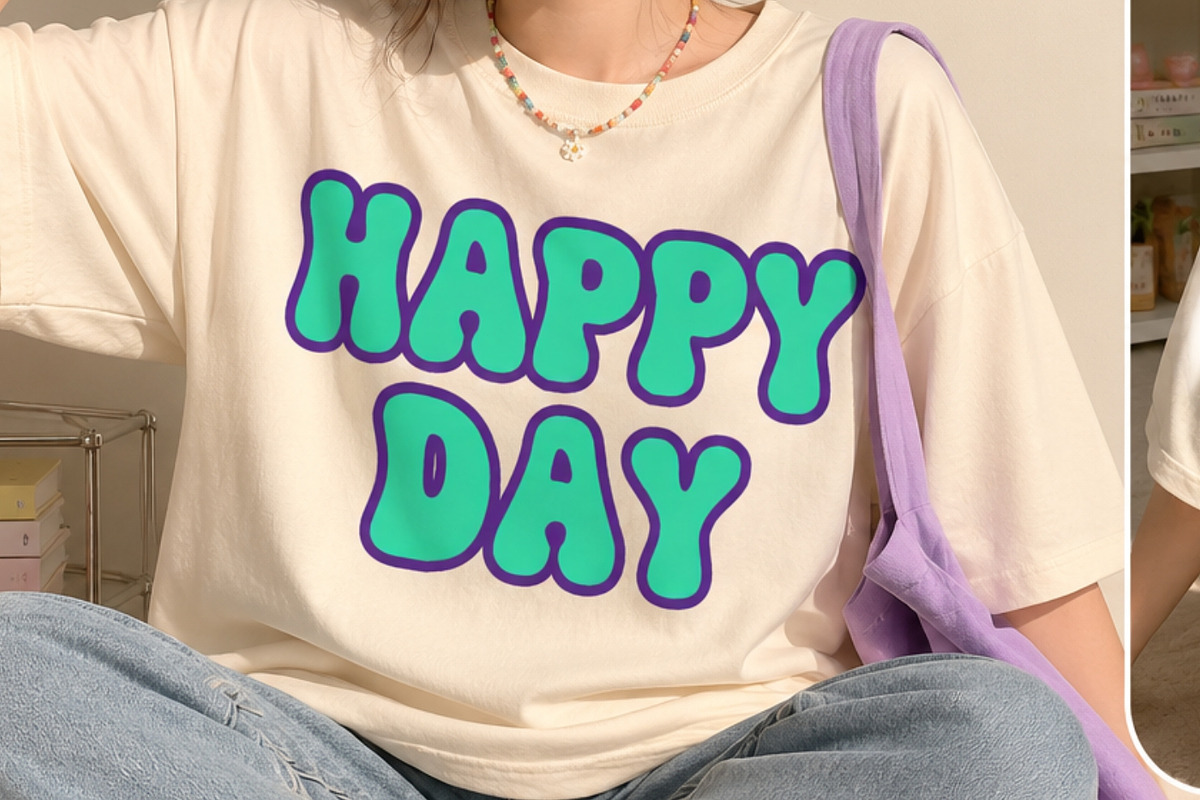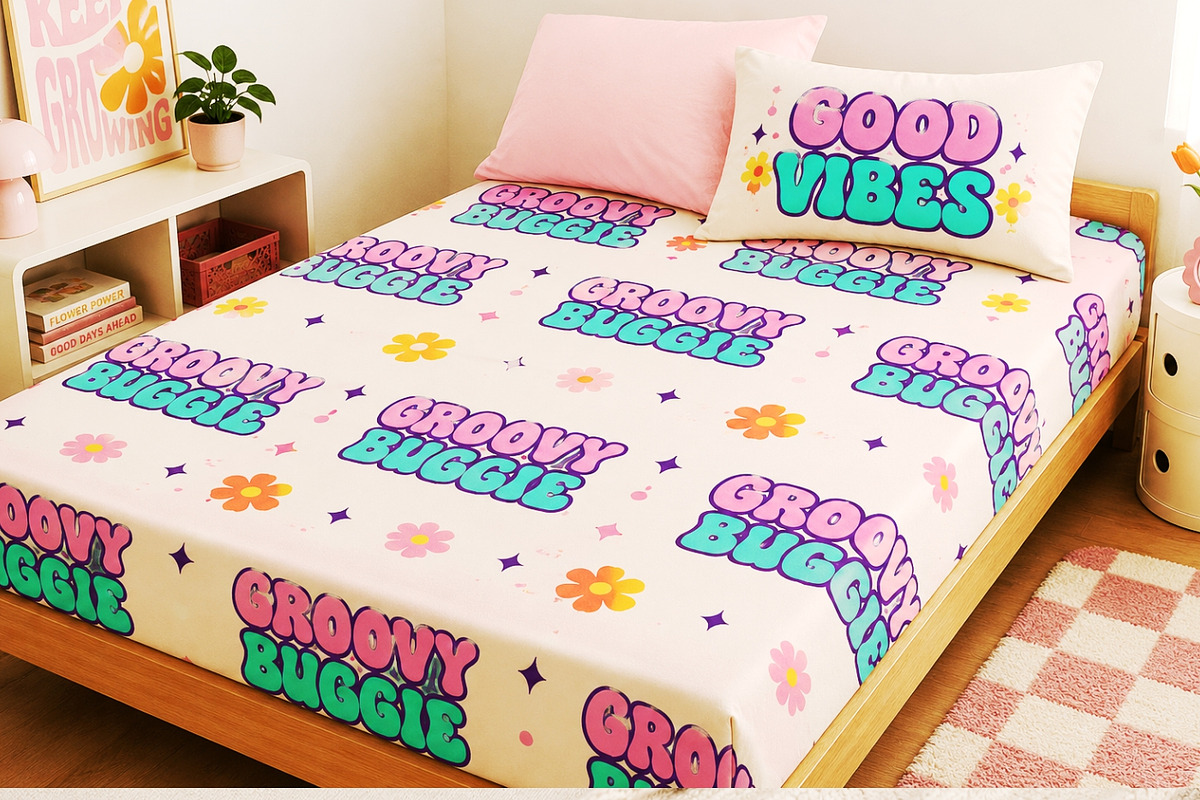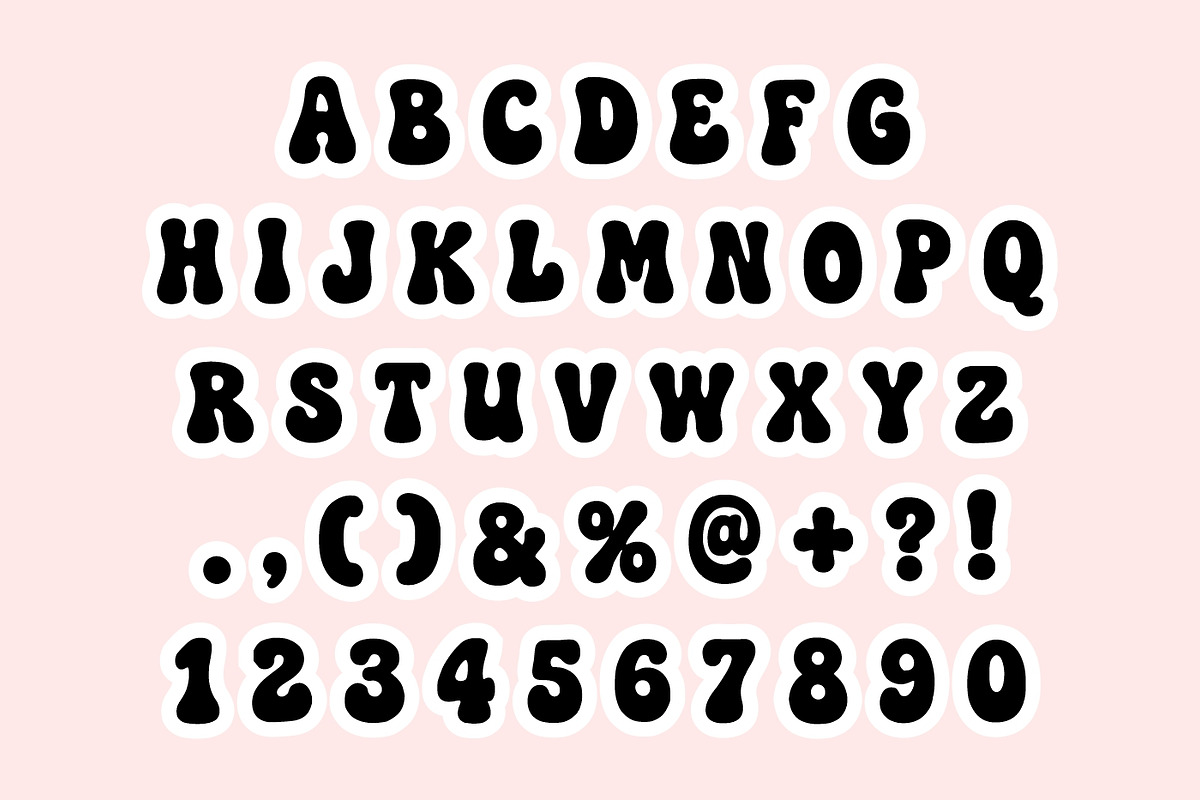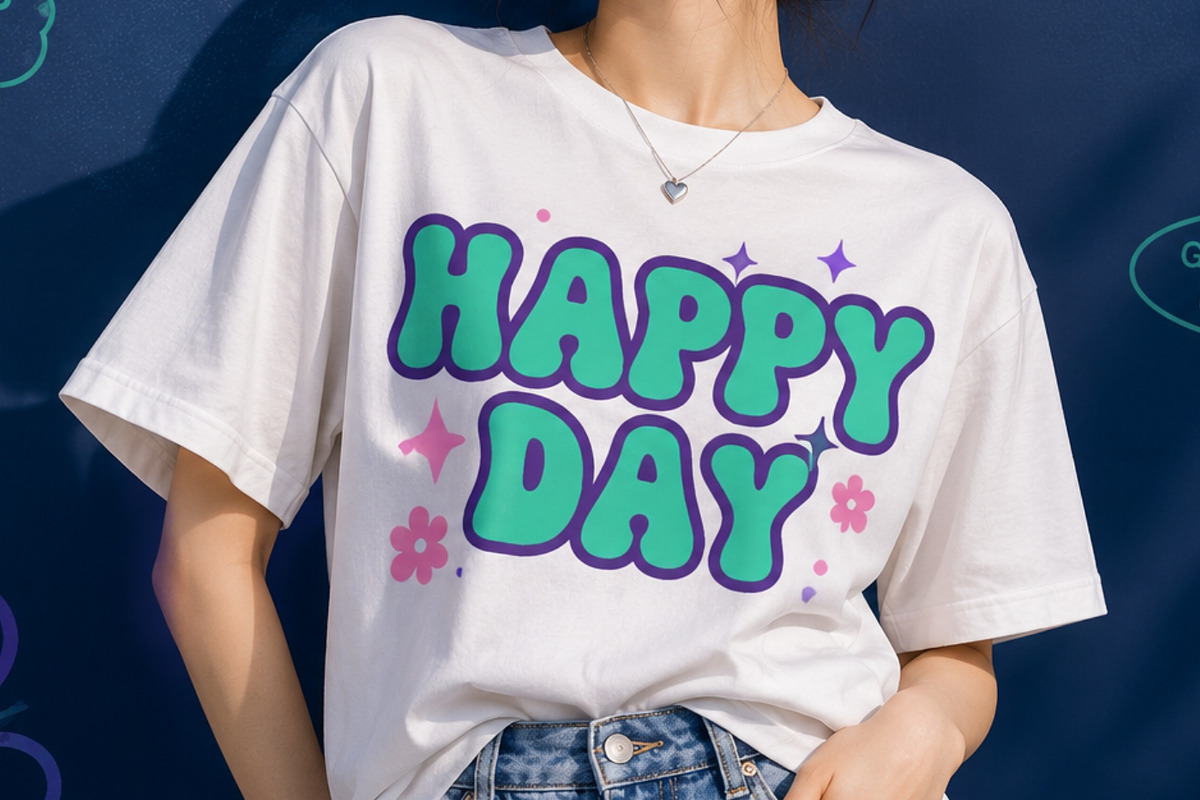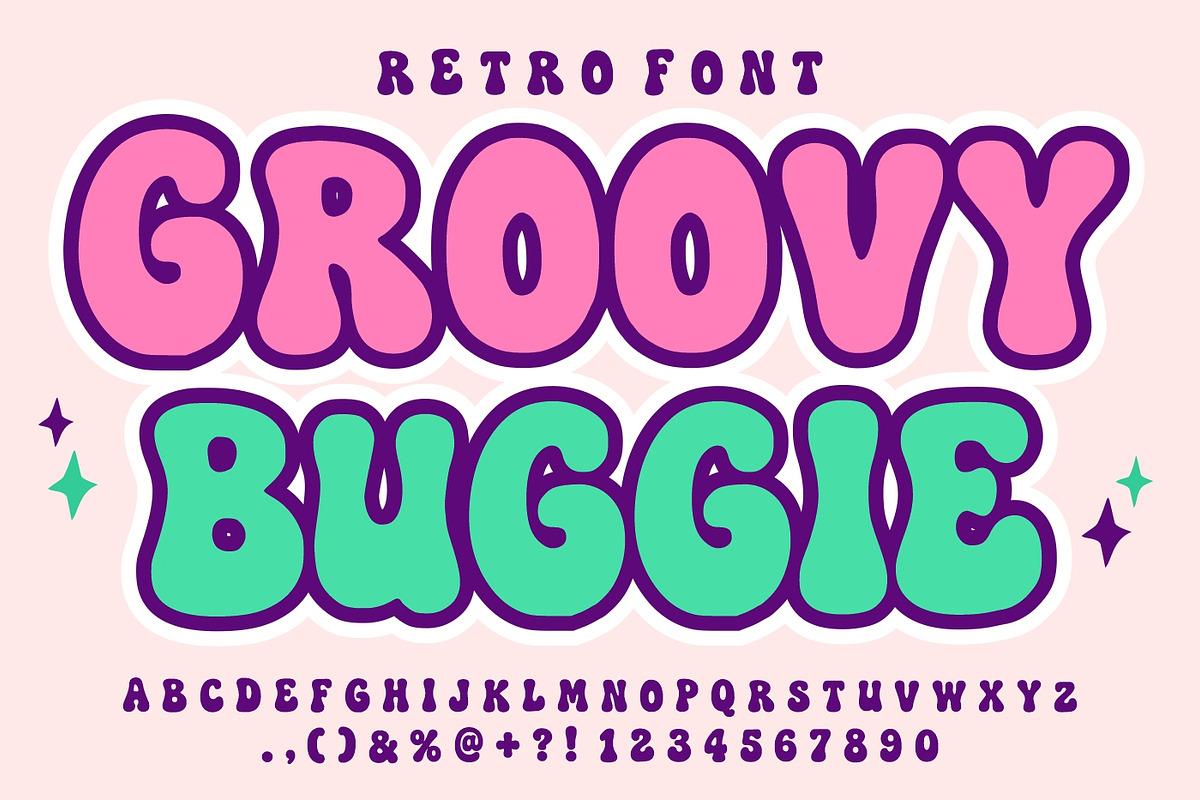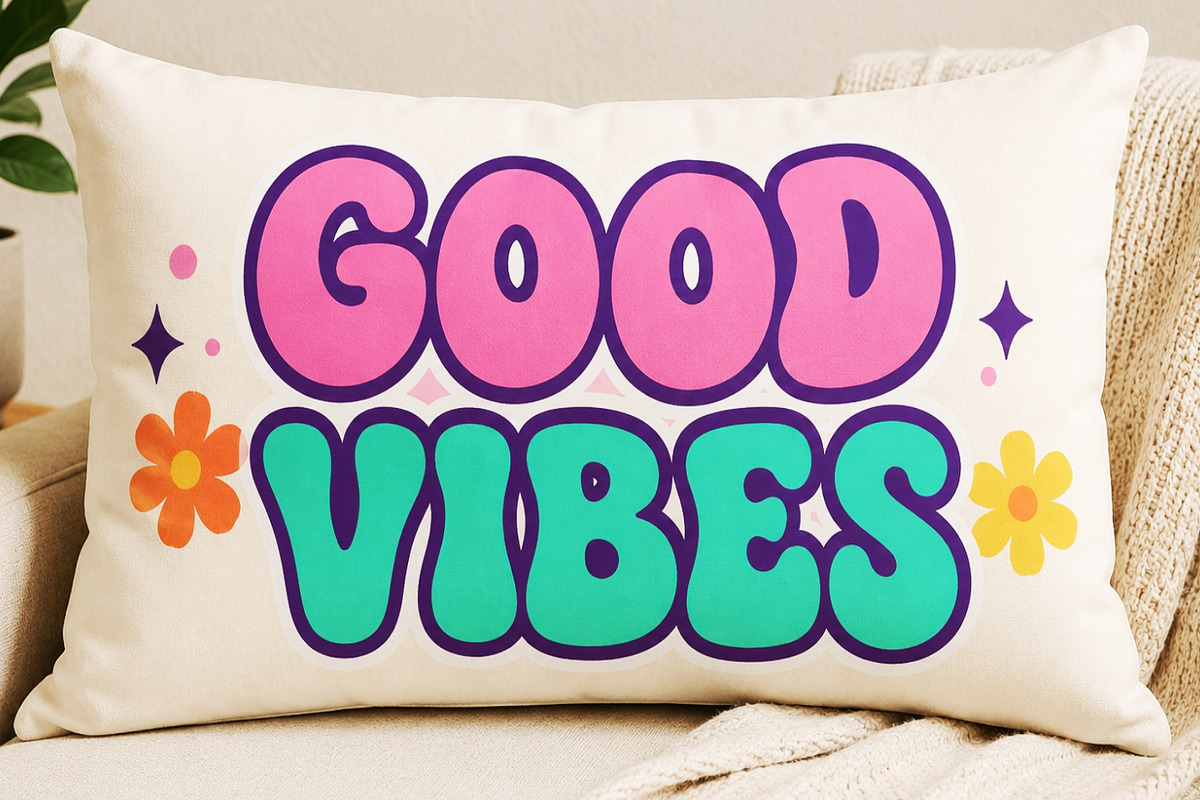
Groovy Buggie
Groovy Buggie is a fun, cheerful, and eye-catching retro bubble font inspired by the colorful design trends of the 60s, 70s, and early pop culture era. Featuring chunky rounded letterforms, playful curves, and a nostalgic groovy personality, this font instantly brings warmth, happiness, and creativity to any project.
Designed to stand out in large displays, Groovy Buggie combines vintage charm with modern usability. Its bold and bubbly appearance makes it perfect for creating memorable logos, children’s products, toy packaging, social media content, posters, stickers, greeting cards, branding projects, and merchandise designs. The smooth rounded edges create a friendly and approachable look that appeals to both kids and adults.
Whether you’re designing retro-themed artwork, colorful branding, playful packaging, cartoon graphics, party invitations, classroom materials, YouTube thumbnails, or trendy social media posts, Groovy Buggie delivers a joyful visual impact that captures attention immediately.
The font works beautifully with bright color palettes and layered effects, making it an excellent choice for designers looking to create fun, energetic, and nostalgic designs. Its unique bubble-inspired style adds personality and excitement while maintaining excellent readability.
Groovy Buggie is the perfect display font for creative projects that need a touch of happiness, retro flair, and playful character. Bring your designs to life with a font that celebrates fun, imagination, and timeless vintage aesthetics. Perfect For: